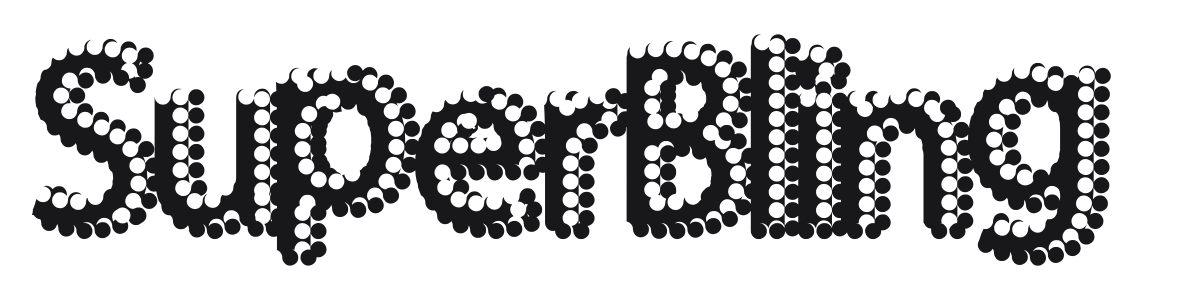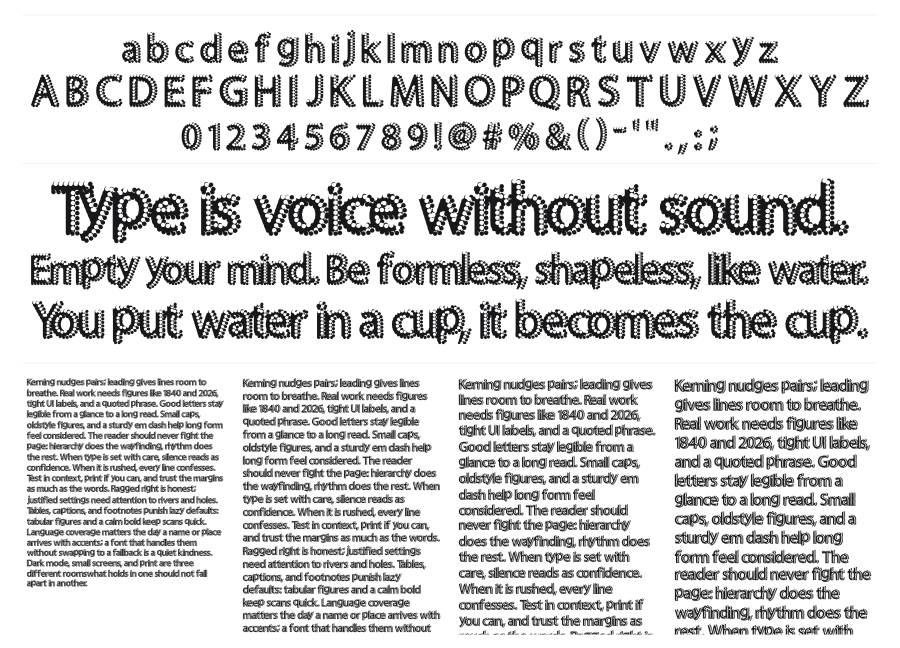
SuperBling
SuperBling is a bold rounded display font where every character is packed with polka dots that create a striking 3D sphere illusion. The effect reads somewhere between halftone print and bubble wrap, with a distinctly pop-art energy. It commands attention at large sizes and brings immediate personality to posters, covers, and display headlines.